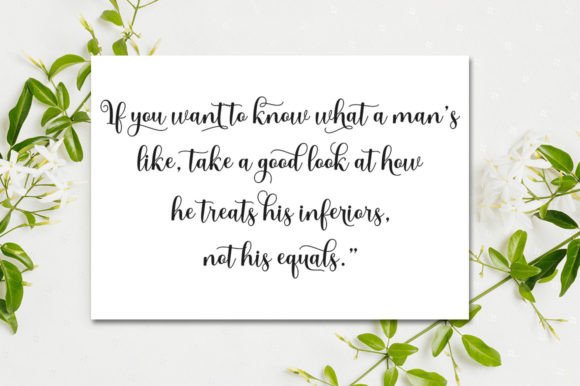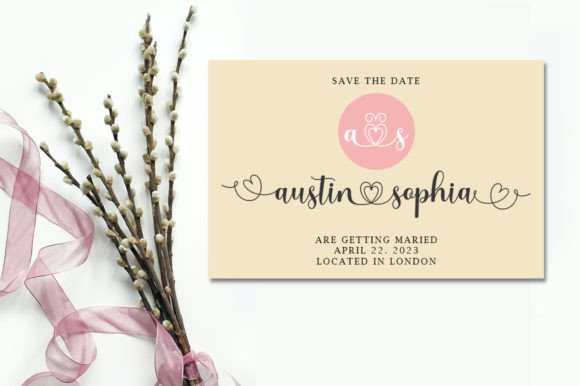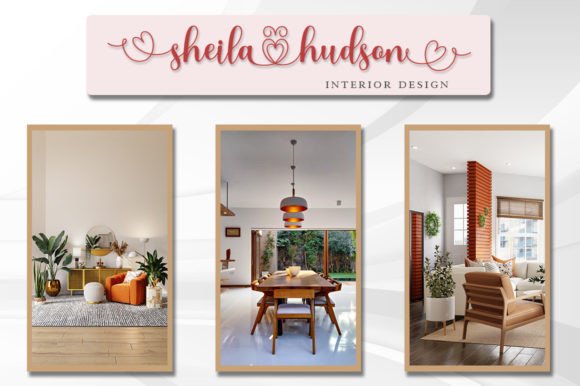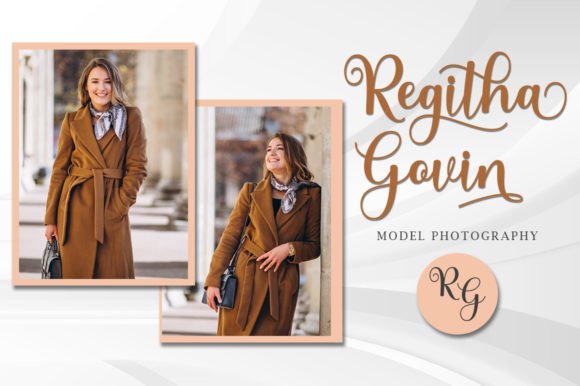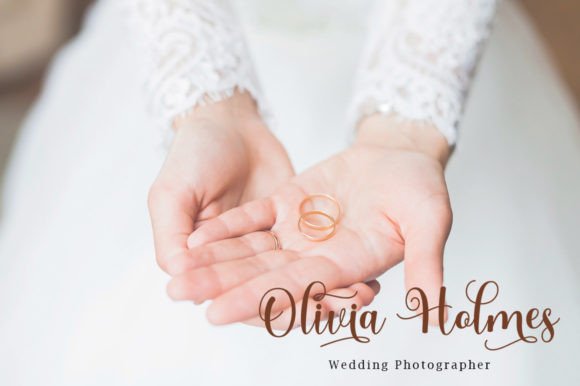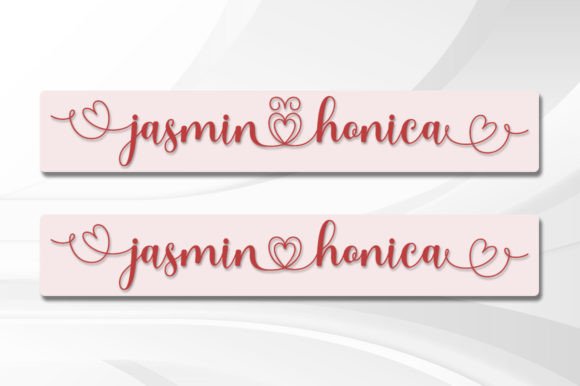
Introduction to Rosetin Font
There’s something magical about scribbling down a handwritten note to a loved one, or carefully crafting the perfect wedding invitation. It’s these small, personal touches that make a design truly special. For those seeking to add a touch of elegance to their creative projects, look no further than the Rosetin Font.
This beautifully crafted font is more than just a pretty face – it’s a valuable design resource for anyone looking to elevate their work. With its smooth lines, gorgeous glyphs, and stunning alternates, the Rosetin Font is perfect for adding a high-quality, handwritten touch to everything from greeting cards to logos.
Key Features of Rosetin Font
- High-quality design with a transparent background, perfect for creative projects
- Unique, handcrafted design with intricate details and textures, adding a touch of elegance to any project
Honest Review: Rosetin Font
As a designer, I’m always on the lookout for high-quality design resources to elevate my creative projects. Recently, I stumbled upon the Rosetin Font, and I’m excited to share my honest review with you.
- ✨ Elegant and modern design aesthetic that’s perfect for luxury and high-end projects
- ✨ Clear and legible typography, making it easy to read even at small font sizes
- ⚠️ Limited font variations, which may not be ideal for designers who need a wide range of options
- ⚠️ Some users may find the font’s weight to be too light, especially for body text
Overall, I’m impressed with the Rosetin Font’s clean and sophisticated design. While it may not be the most versatile font, it’s a great addition to any designer’s toolkit. If you’re looking for a high-quality font for your next creative project, I’d definitely recommend checking it out.
Rosetin Font
Use the Rosetin Font on a transparent background to create a clean and modern design.
Experiment with different font sizes and colors to create a visually appealing design.
The Rosetin Font is perfect for:
Designing logos and branding materials.
Creating social media graphics and posts.
Developing marketing materials such as brochures and flyers.